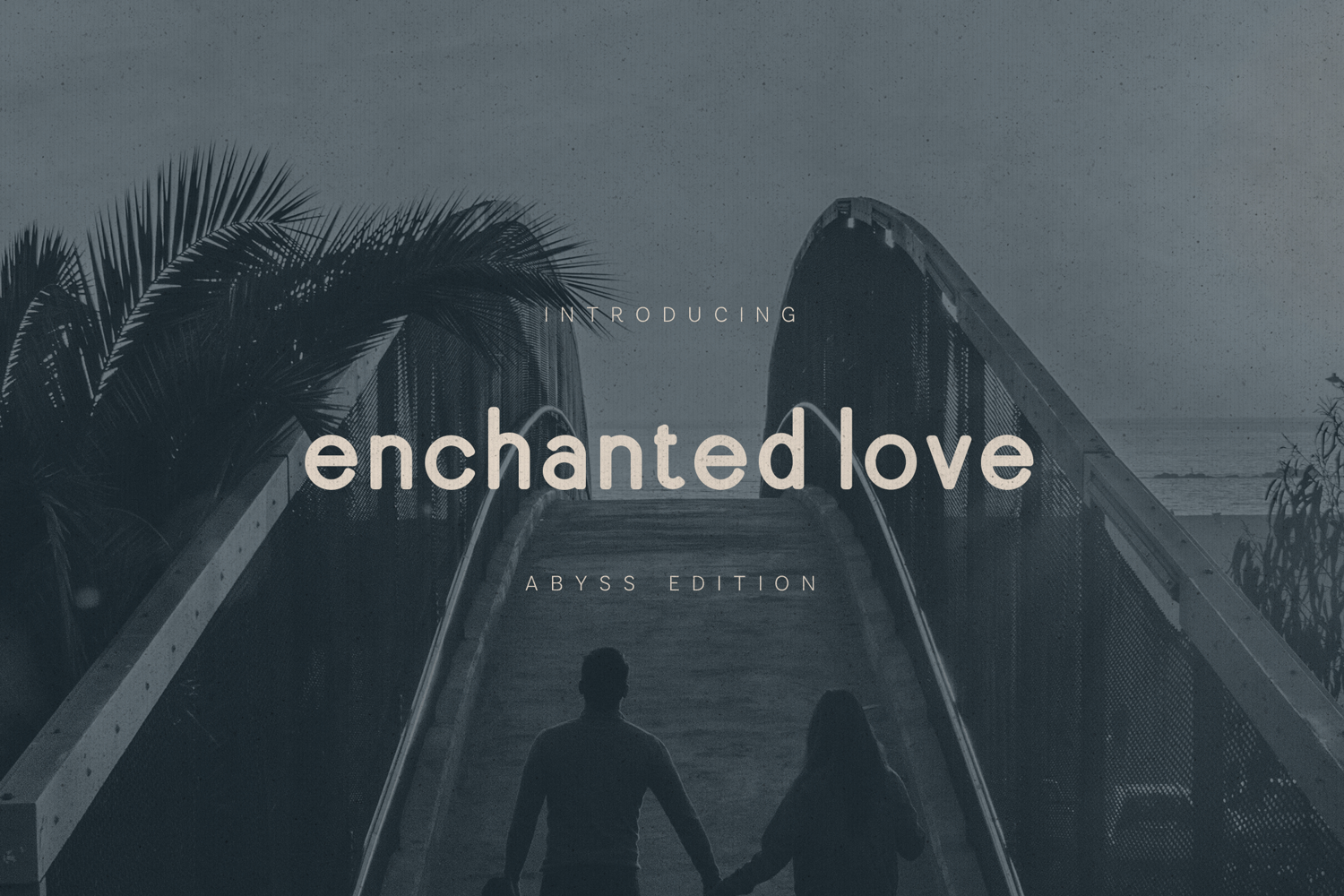
Enchanted Love Soft Rounded Sans Serif
Enchanted Love is a modern rounded sans serif font crafted with softness, warmth, and human expression in mind. Its gentle curves, balanced proportions, and subtle organic texture create a calm and emotional tone that feels intimate, modern, and inviting.
Designed for projects that communicate feeling rather than force, Enchanted Love is ideal for lifestyle branding, romance-driven visuals, wellness projects, editorial layouts, packaging, quotes, and modern digital design. The font’s friendly appearance makes it highly readable while maintaining a refined, contemporary character.
This typeface is perfect for designers looking to add warmth, softness, and emotional clarity to their typography.
✦ Perfect for:- Lifestyle & wellness branding
- Romantic & emotional design
- Editorial & magazine layouts
- Quotes & social media graphics
- Packaging & labels
- Minimalist websites
- Print & digital projects
- Soft rounded sans serif font
- Organic & human character
- Uppercase & lowercase letters
- Numbers & punctuation
- Extensive multilingual support
- Calm, friendly readability